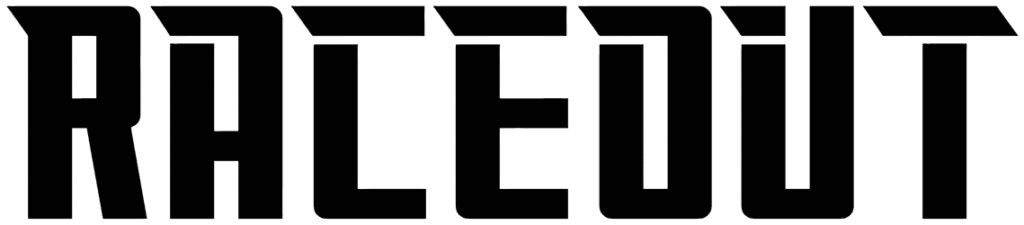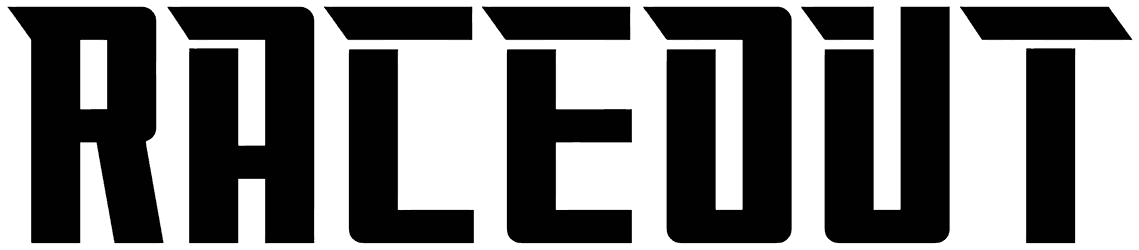
Raceout Font
If you think your design needs a unique modern style to become more impressive, this car font is going to capture your attention. Raceout font supports two sets of capital letters in two versions, but it doesn’t have lowercase letters, numbers, or punctuation marks. Test this retro font for your car rental poster and hook a lot of observers.